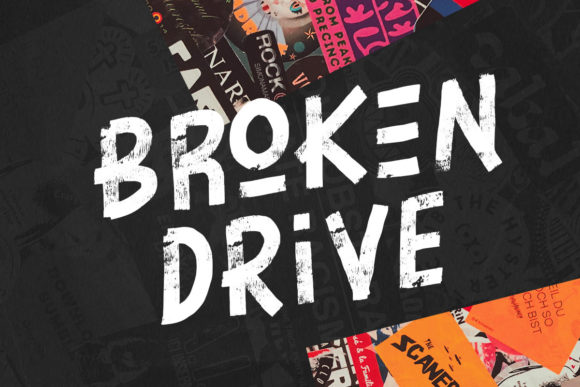
The Ultimate Guide to Broken Drive Font: Unleashing Creative Possibilities
Have you ever been in the middle of a design project, and suddenly, you’re stuck on finding the perfect font? I recall a particularly frustrating experience while working on a poster design for a local craft fair. My client wanted a bold, eye-catching font that would make their flyer stand out, but I was struggling to find something that fit the bill. That’s when I stumbled upon the Broken Drive Font – a cool and bold, rough textured display font that instantly elevated my design.
An Honest Review of Broken Drive Font
So, what makes Broken Drive Font so special? Let’s dive into the good stuff and some minor quirks.
- ✨ Unique Texture: The rough, textured look of Broken Drive Font adds a distinctive character to any design.
- ✅ Versatility: This font is perfect for posters, flyers, prints, and any other design project that needs a bold statement.
- 💥 Impactful: The bold nature of the font ensures it will grab attention and make your design stand out.
While Broken Drive Font is incredibly useful, there are a few things to keep in mind:
- ⚠️ Legibility at Small Sizes: Due to its textured nature, the font may become less legible at very small sizes. It’s best used at larger sizes where its unique texture can shine.
- 🤔 Pairing with Other Fonts: Because of its bold and textured style, it may require careful pairing with other fonts to ensure harmony in your design.
While the specific inspiration behind Broken Drive Font remains a mystery, it’s clear that the designer aimed to create a font that embodies a rugged, urban aesthetic. Imagine a scenario where a designer, fueled by a passion for street art and typography, sets out to capture the raw energy of city life in a font. This could involve sketching letters on rough textures, experimenting with various materials, and finally, digitizing these unique characters to create a font that’s both bold and textured.
| Font Name | Broken Drive Font |
| Author | saridezra |
| What makes Broken Drive Font unique? | Its rough, textured look and bold nature make it stand out, offering a distinctive character to designs. |
| Is Broken Drive Font suitable for body text? | Due to its textured nature and bold style, it’s more suited for headings and titles rather than body text. |
In conclusion, Broken Drive Font is a versatile and impactful font that can elevate your designs with its unique texture and bold style. Whether you’re a designer, crafter, or creative hobbyist, exploring the possibilities with Broken Drive Font can lead to stunning visual outcomes. So, don’t hesitate to experiment and see where this fantastic font takes your creativity!